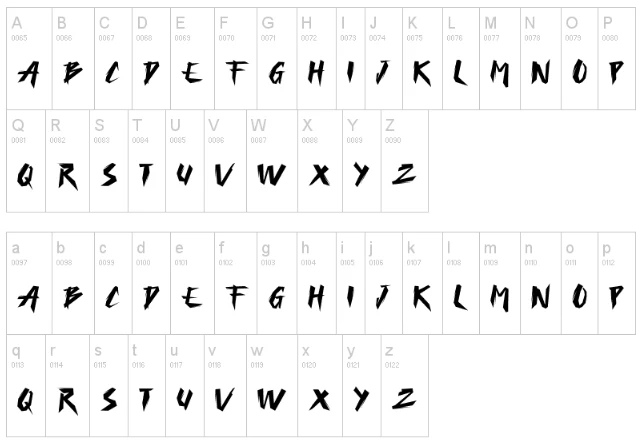
Freeday font is a modern font with many features that were created with passion. The lovely font includes a full set of normal characters, Alternates, Ligature Variation, Punctuation, and an extra textured variant for your design, among other things. Uppercase, lowercase, numeral and punctuation, Stylistic Set01, Stylistic Set21, Stylistic Alternates, and Contextual Alternates are just a few of the font’s attractive characteristics.
There are also Textured and Rough versions of the font and Standard and Discretionary Ligatures. Fractions, Initial and Terminal Forms, Swash, Smallcaps Numeral, and many other features are included as bonuses. Alistair Font Include : Freeday Script Regular OTF – TTF, Freeday Script Bold OTF – TTF, Freeday Script Rough Solid OTF – TTF, Freeday Script Rough Textured OTF – TTF, Freeday Sans Oblique OTF – TTF and Freeday Sans Regular OTF – TTF. Aktab studio created and shared the font.
The font is ideal for creating personalized mug designs. The font will also look excellent on photographs of people having a good time while traveling. Freeday Font also eting cards, T-shirts, logos, and other designs.
| Name | Freeday Font |
| Style | Sans-Serif. |
| Designer | Aktab studio |